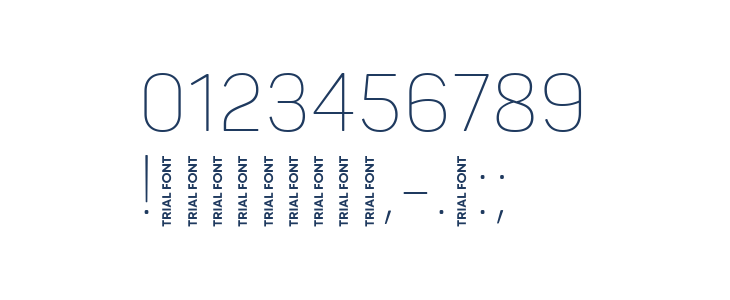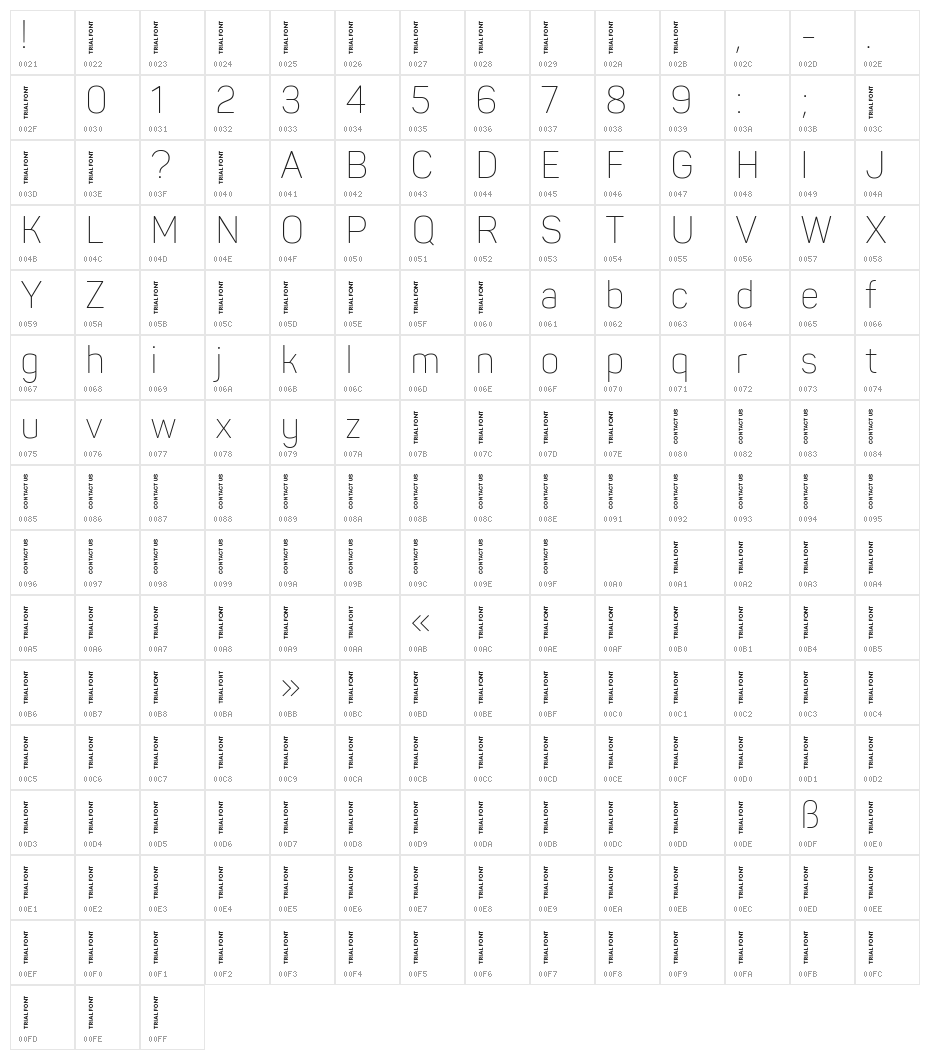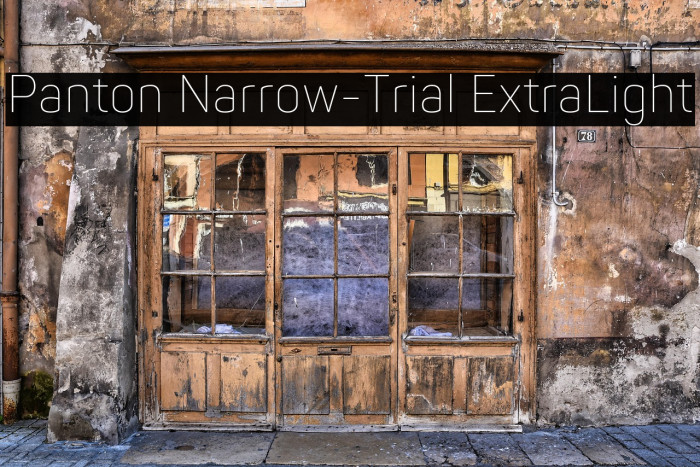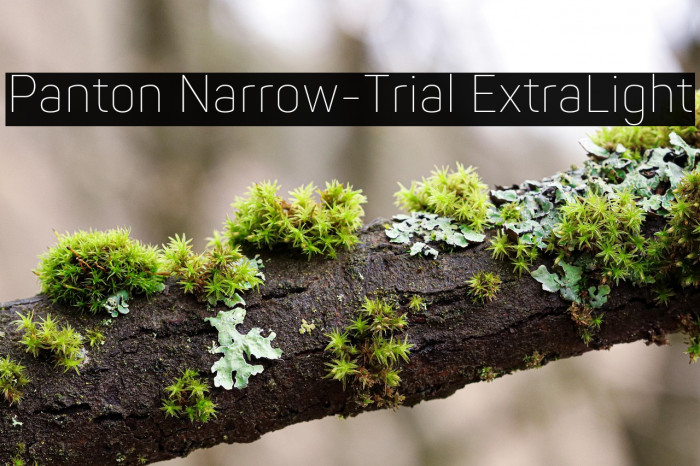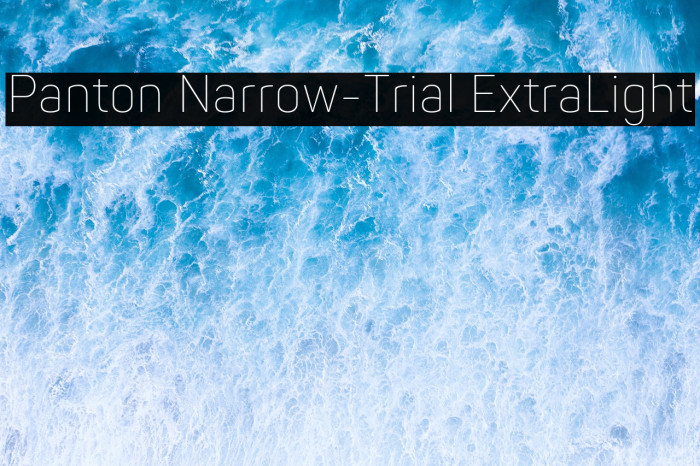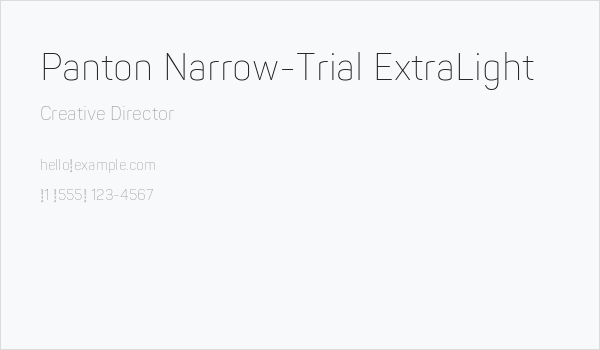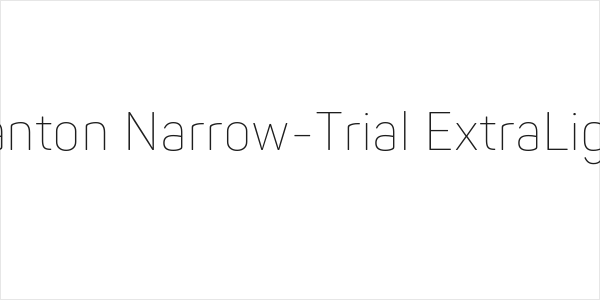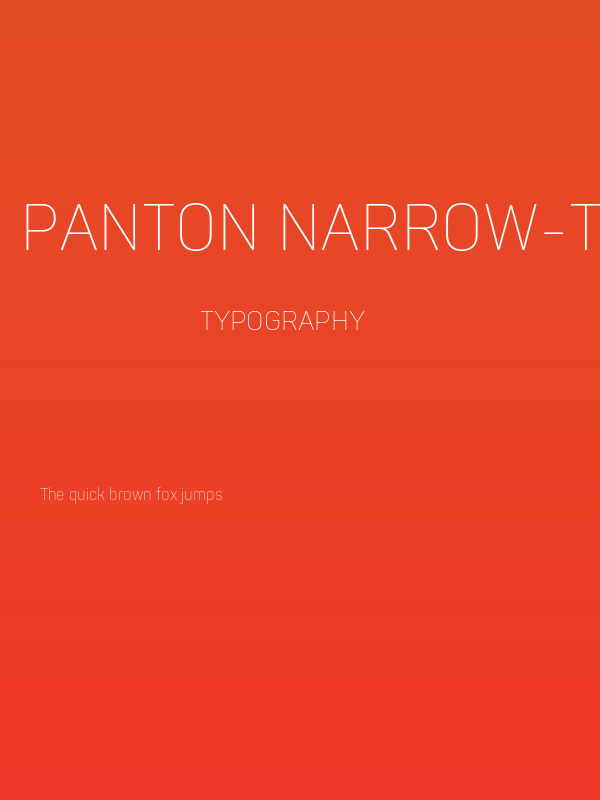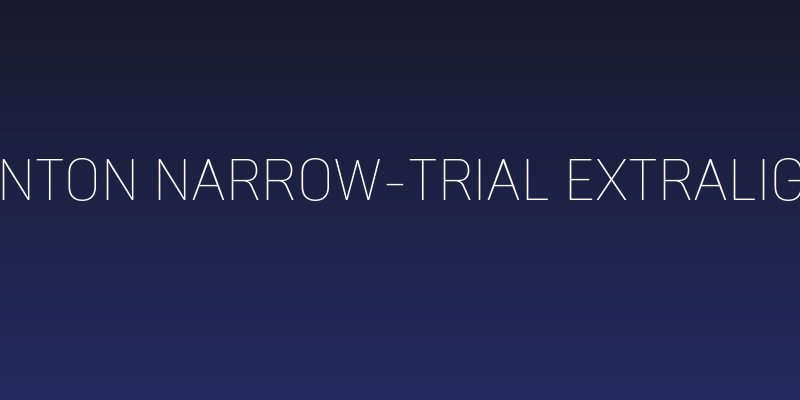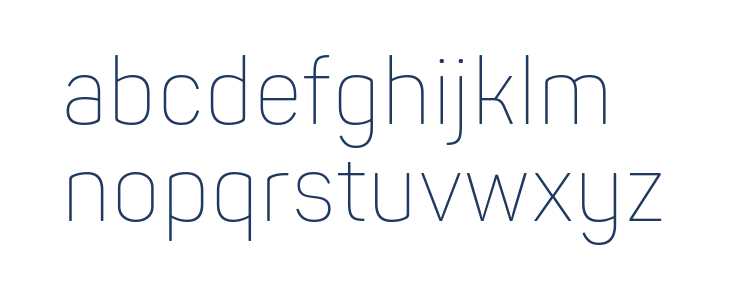
Panton Narrow-Trial ExtraLight Font
Panton Narrow-Trial ExtraLight Description
This font features a sleek, modern design with a narrow structure that gives it a sophisticated and contemporary look. The characters are uniformly thin, contributing to an overall light and airy appearance. The font maintains a consistent line weight throughout, with minimal variation in stroke thickness, which enhances its clean and streamlined aesthetic. The spacing between characters is tight, allowing for efficient use of space while maintaining readability. Its geometric shapes and sharp edges make it ideal for projects that require a modern and professional touch.